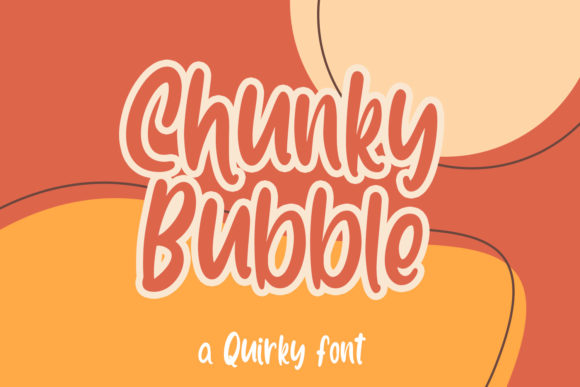
Once upon a time, in a realm of digital artistry, there lived a font named Chunky Bubble. As a member of the display font family, Chunky Bubble was more than just a collection of letters and symbols; it was a whimsical journey into the world of imagination and cheer.
Crafted by the skilled hands of TempCraft, Chunky Bubble exuded playfulness and childlike wonder. Its rounded edges and exaggerated features danced across the screen, evoking a sense of nostalgia and pure joy.
With Chunky Bubble as your digital paintbrush, transform your creative projects into vibrant masterpieces. Let your words burst forth with an infectious energy that captivates and delights. From whimsical logos to cheerful invitations, Chunky Bubble adds a touch of magic to every design.
Imagine your signature logo, adorned with Chunky Bubble's playful charm, standing out from the crowd like a radiant beacon of personality. Your designs will radiate with warmth and approachability, inviting viewers to bask in the font's irresistible allure.
Chunky Bubble is more than just a font; it's an experience. Dive into its depths and discover a world where imagination reigns supreme. Embrace the child within and let your creativity soar to new heights.
So, step into the enchanting realm of Chunky Bubble and embark on a creative adventure like no other. With each click, you'll infuse your projects with happiness, charm, and a touch of irresistible whimsy.